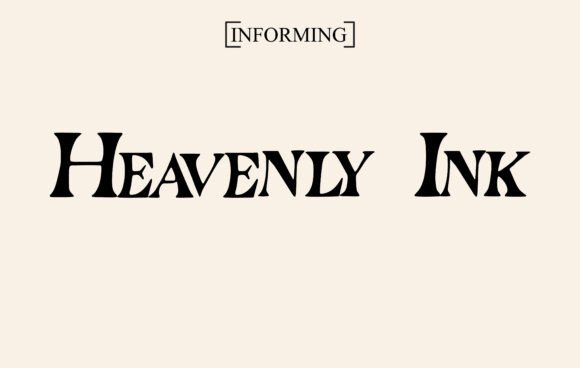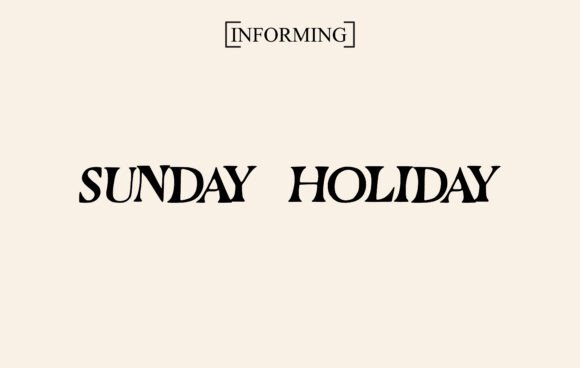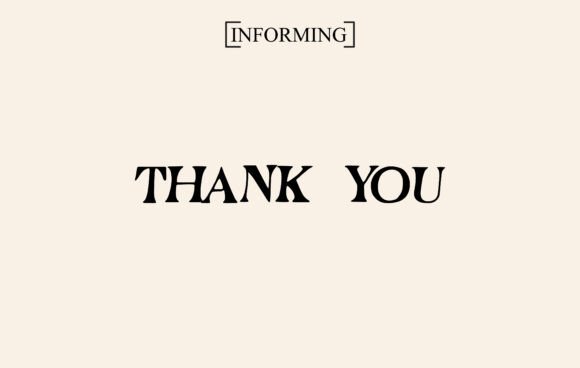
Heavenly Ink Font
About the Heavenly Ink Font
Elevate your designs with Heavenly Ink Font, a font that combines sophistication with readability. This font is designed to be a true favorite and it has the potential to take your creative ideas to the highest level
Heavenly Ink’s elegant and slightly playful personality makes it ideal for headlines, short-form text in branding materials, and stylish packaging. It works particularly well for projects emphasizing sophistication and a touch of whimsy—think wedding invitations, boutique branding, or upscale product labels. However, its delicate letterforms aren’t suited for body text or UI elements requiring high legibility over extended reading.
Pairing Heavenly Ink effectively depends on the desired emphasis. For a more classic feel, consider pairing it with a clean serif like Garamond or a neutral sans-serif such as Lato. To highlight its playful side, a handwritten script like Pacifico or a geometric sans-serif like Montserrat would create a striking contrast.
The font’s overall mood is best described as sophisticated yet approachable. It projects a sense of refined quality without being overly formal or austere.
Heavenly Ink Font Usage Examples
Heavenly Ink Font Example